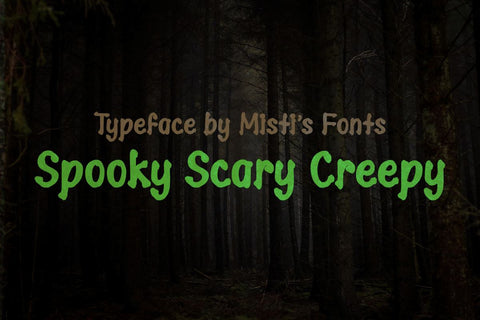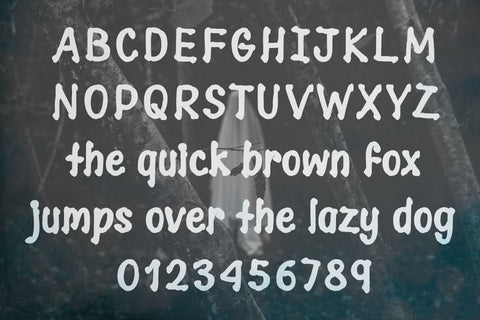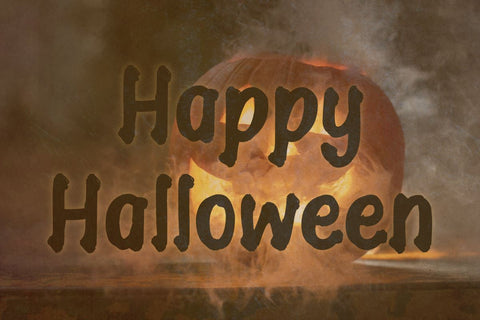
Spooky Scary Creepy
Introducing Spooky Scary Creepy, the ultimate Halloween typeface! With its rough, distorted edges and eerie vibe, this font is perfect for adding a hauntingly fun touch to your seasonal projects. Great for posters, invitations, and spooky designs!
- Misti's Fonts ,